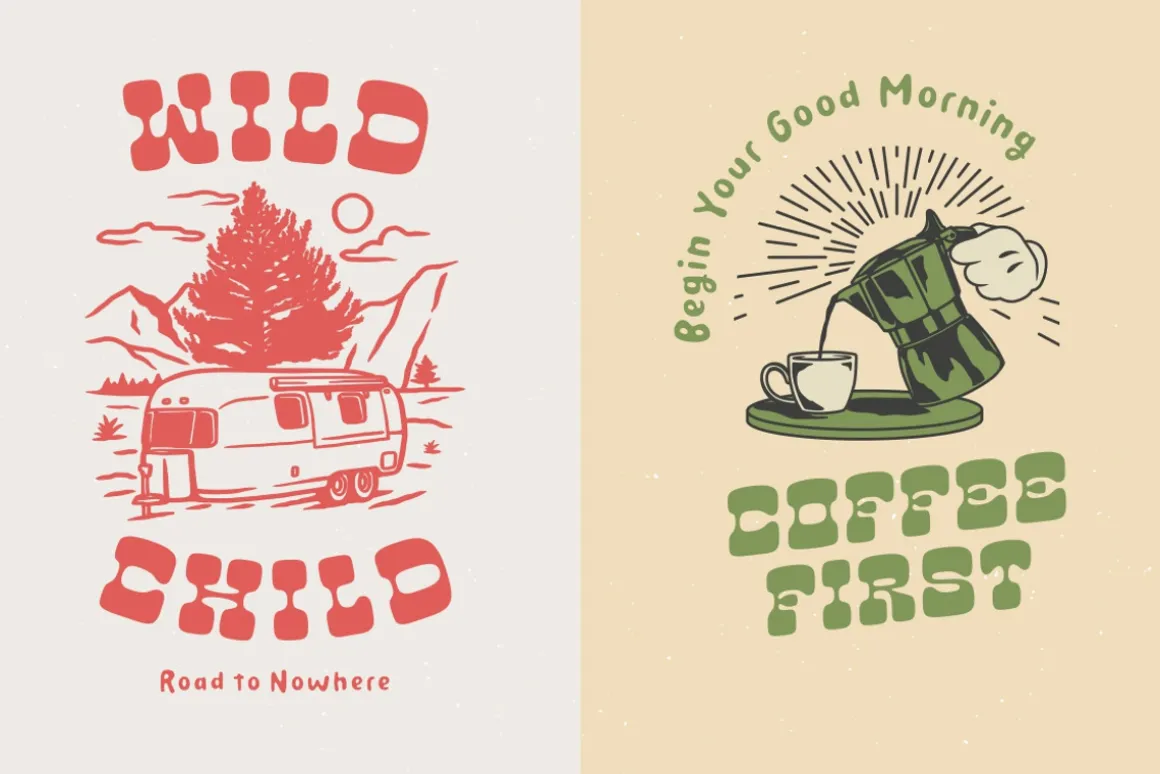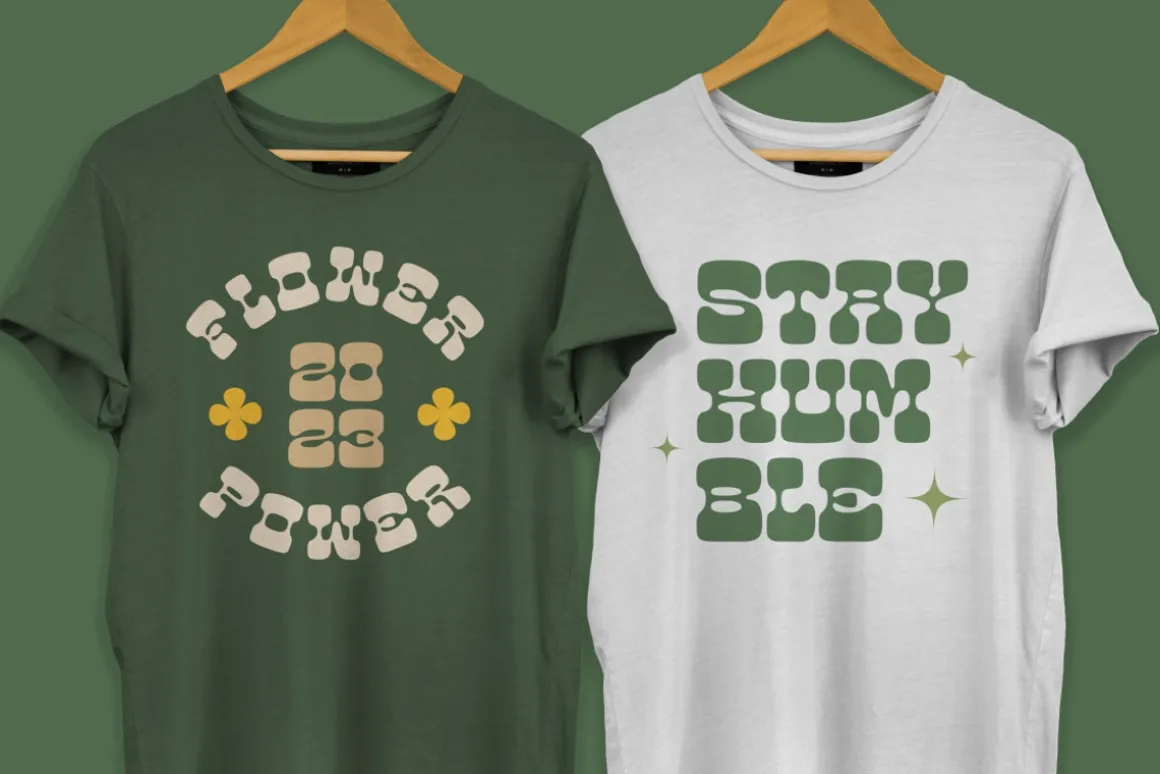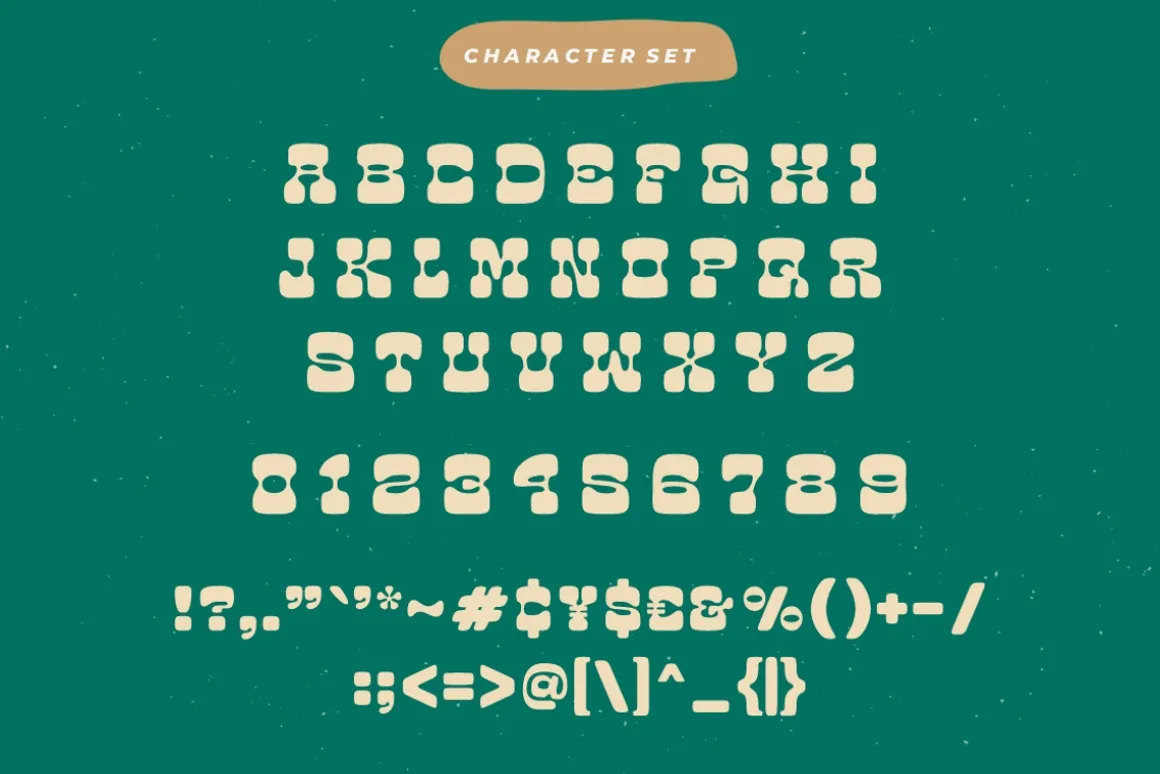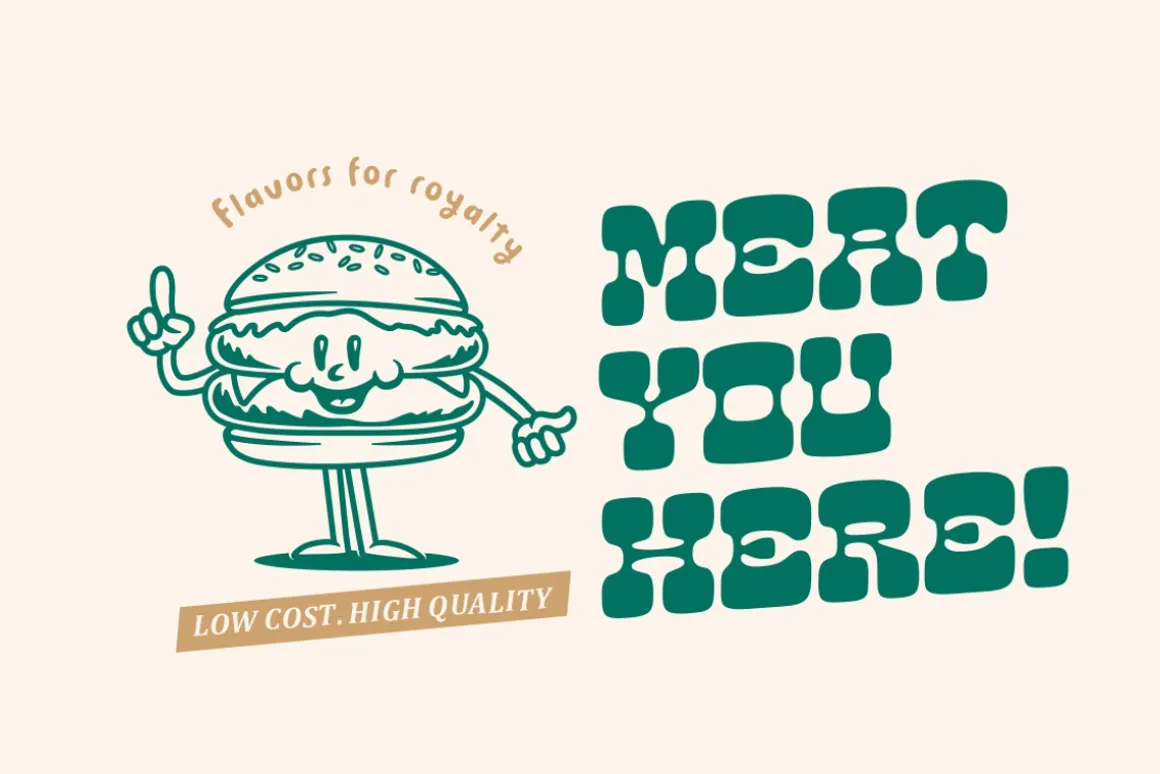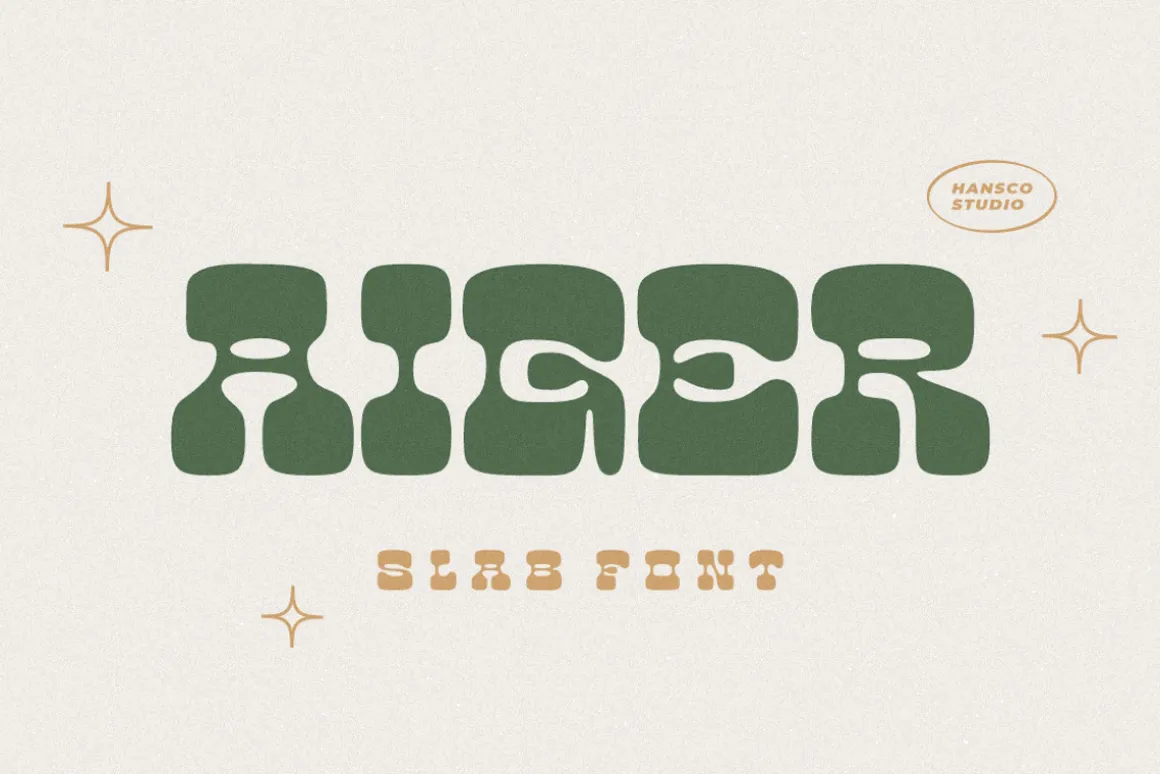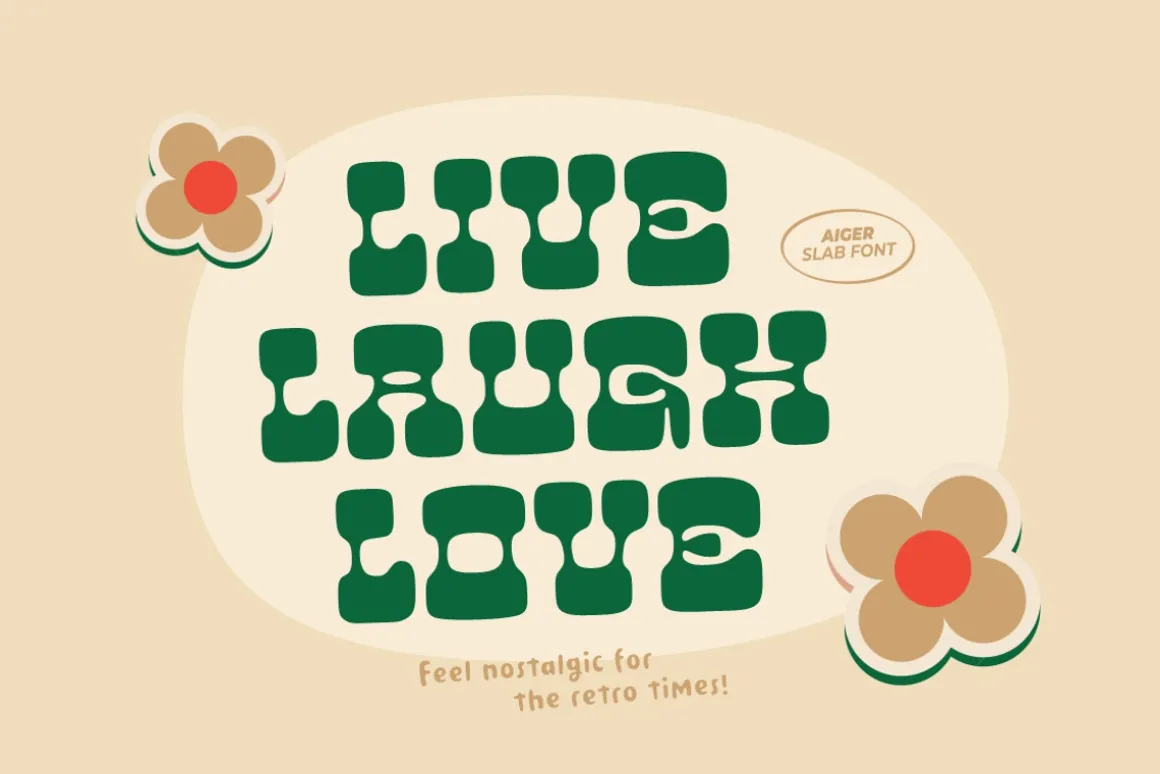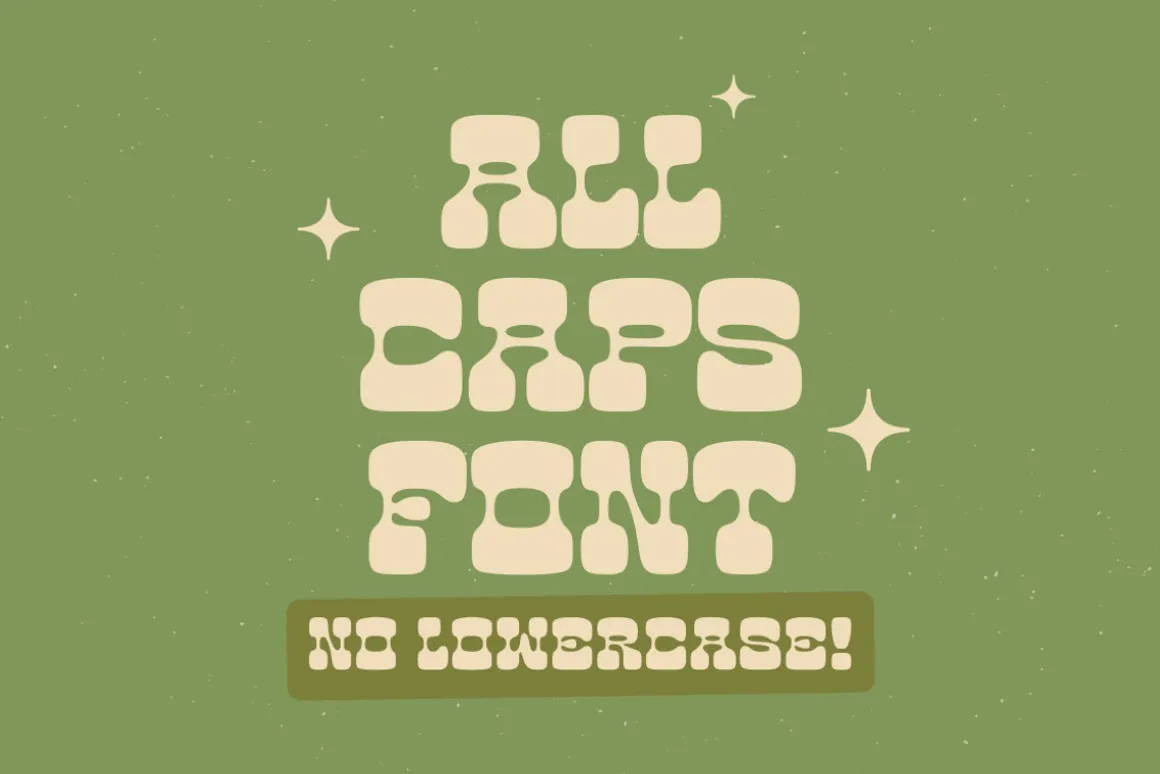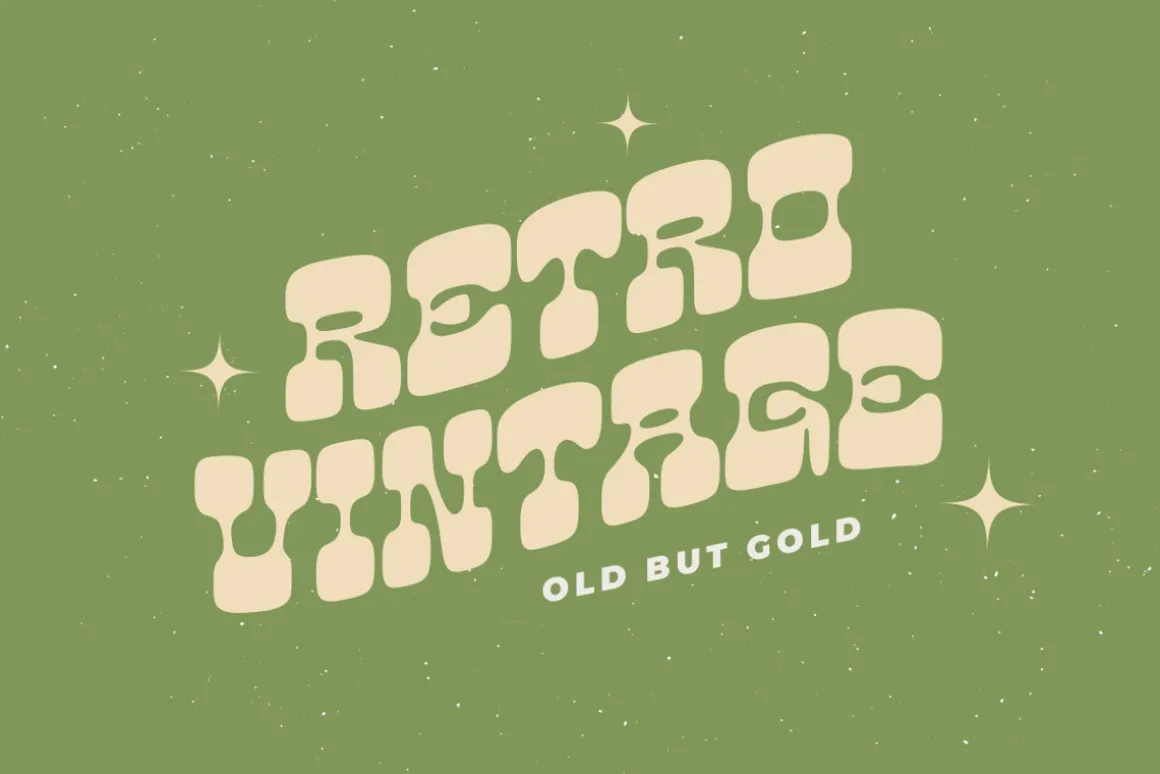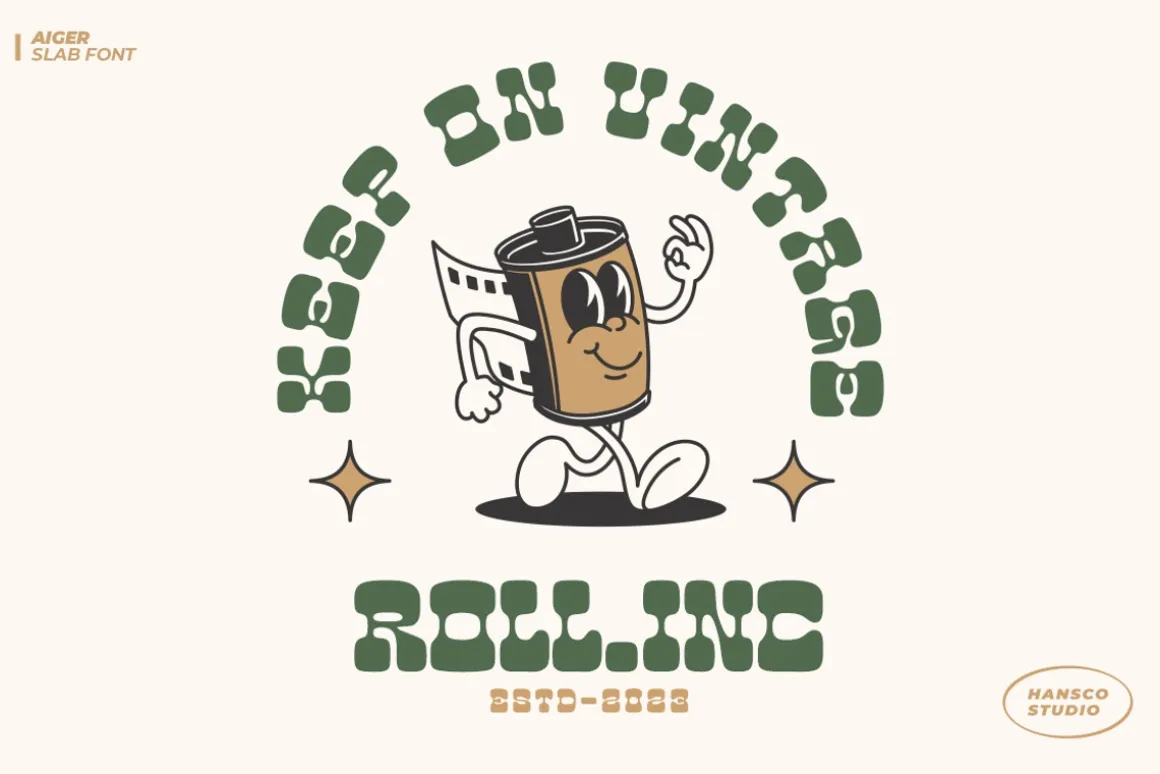
Aiger is a slab type font with rounded characters on each side. Use this display slab font to add that special retro vintage touch to any design idea you can think of!
Very suitable for logotype, Stickers, Packaging design, Cricut Project, headlines, brand identity, t shirt or apparel industry, posters, magazines, books, YouTube, Instagram, websites, or any of your creative design projects.